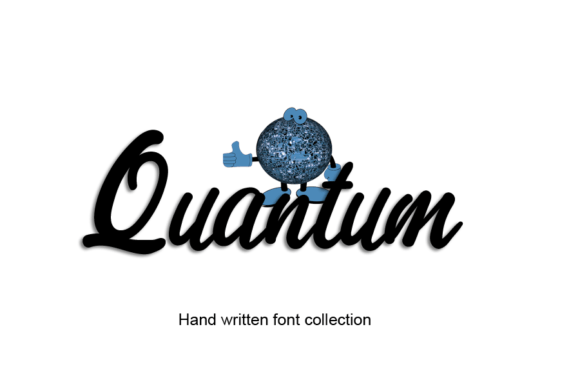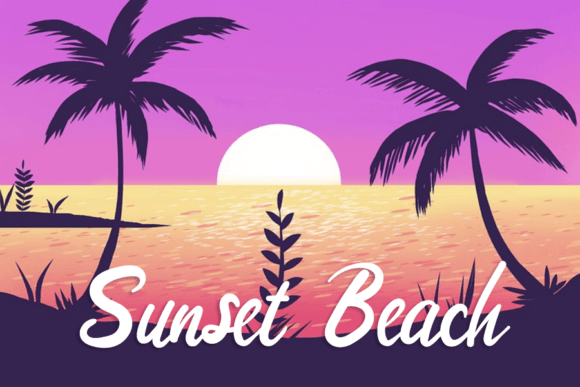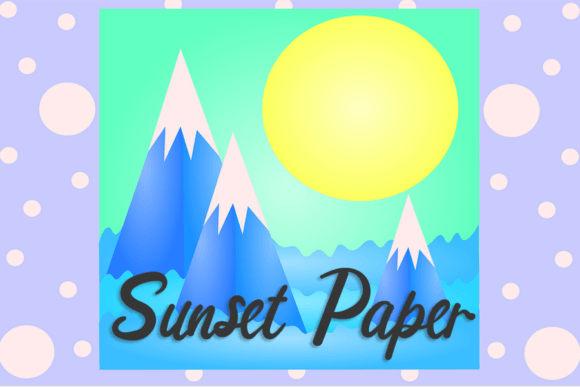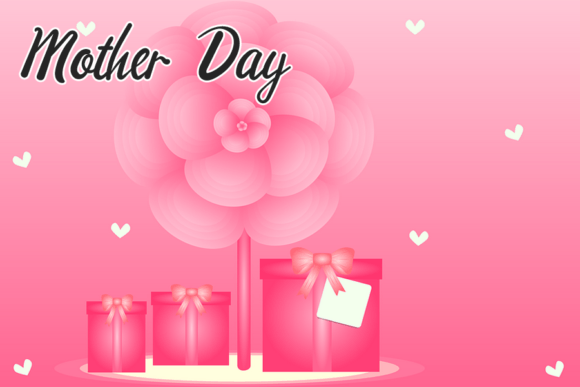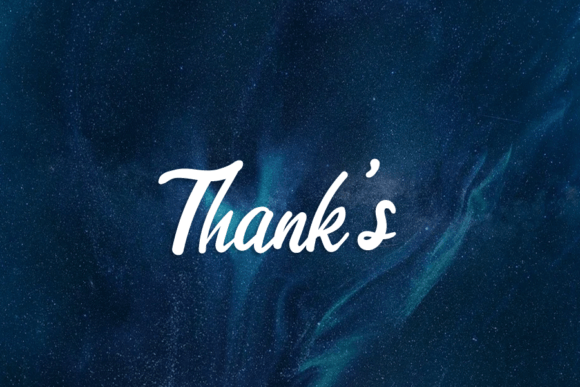
About Quantum Font
Quantum, the font described as having a signature-like, casual, and elegant style, is a versatile and visually appealing typeface that can elevate a wide range of creative projects. Its unique design makes it particularly well-suited for various applications, including signatures, photography, weddings, business cards, quotes, logos, branding projects, product packaging, book covers, and more.
The casual nature of Quantum brings an element of warmth and approachability to any text it graces. The flowing strokes and nuanced detailing create an impression of effortlessness, making it an excellent choice for signatures. Whether you’re signing off on a document, adding a personal touch to a message, or crafting a unique logo, Quantum lends a distinct and memorable flair.
In the realm of photography, this font can enhance the overall aesthetic of captions or watermarking, providing a harmonious blend of style and readability. Its elegant curves and thoughtful spacing contribute to a sophisticated look, making it ideal for wedding invitations and other formal event materials. The font’s versatility is further evident in its compatibility with business cards, where it can convey professionalism with a touch of personality.
Quotes, especially those aiming for a timeless and classic feel, can benefit from Quantum’s graceful design. The font’s ability to seamlessly integrate with diverse branding projects makes it a valuable asset for companies looking to establish a visual identity that is both contemporary and refined. The font’s adaptability extends to product packaging, where it can contribute to a cohesive and eye-catching design.
Book covers, with their emphasis on visual appeal, can benefit from Quantum’s ability to capture attention while maintaining an understated elegance. The font’s clean lines and balanced proportions make it readable even in smaller sizes, ensuring its suitability for various print materials.
In conclusion, Quantum is not just a font; it’s a design tool that bridges the gap between casual and elegant, making it perfect for a myriad of creative endeavors. Its ability to convey a sense of style and personality makes it a valuable asset for designers and individuals alike, seeking to make a lasting impression across a diverse range of projects. Whether used in signatures, branding, or other applications, Quantum has the power to transform ordinary text into a visually striking and memorable element.